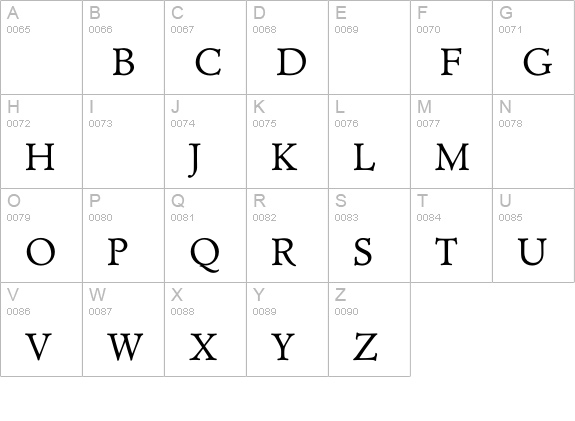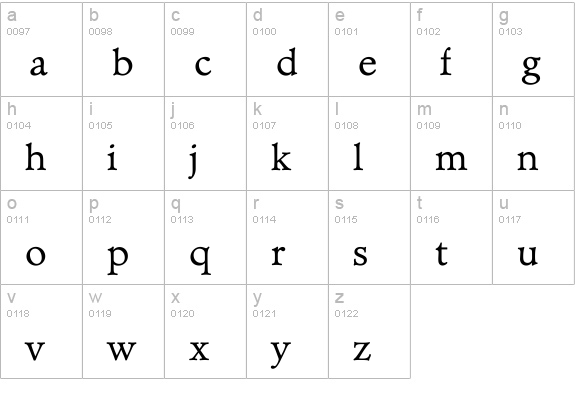
TCAdministerBook Font Details
TCAdministerBook is a beautifully crafted font that exudes elegance and sophistication. With its clean lines and stylish curves, this font is perfect for adding a touch of class to any design project. Whether you're creating a stunning logo, designing a sleek website, or crafting eye-catching print materials, TCAdministerBook will elevate your work to new heights. What makes TCAdministerBook even more appealing is that it is freely available to download at FontsMarket.com. Yes, you read that right - this incredible font is absolutely free! FontsMarket.com is a trusted platform where designers and creatives can access a vast collection of high-quality fonts, and TCAdministerBook is one of the shining stars in their lineup. Downloading TCAdministerBook is a breeze, and once you have it in your font library, you'll be amazed at the versatility and beauty it brings to your designs. Its legibility and classic appeal make it suitable for a wide range of projects, from elegant wedding invitations to professional business presentations. The carefully designed characters of TCAdministerBook ensure that every letter and glyph flows seamlessly together, creating a harmonious and visually pleasing composition. Whether you're working on a digital or print project, TCAdministerBook will provide the perfect balance between style and readability. So why wait? Discover the beauty and versatility of TCAdministerBook today and elevate your design projects to a whole new level. Download this stunning font for free at FontsMarket.com and unlock a world of creative possibilities.